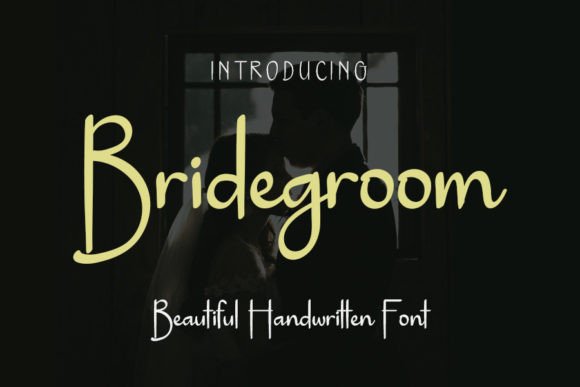
Introducing the Bridegroom Font - the perfect font for adding a touch of elegance and magic to your projects. Designed by shiddiq.art, this script font family is sure to leave a lasting impression on anyone who lays eyes on it.
Bridegroom Font is more than just a font - it's a work of art. With its beautiful and magical handwritten style, it strikes the perfect balance between thin and thick strokes, resulting in a unique and eye-catching look that is sure to captivate your audience.
If you're looking for a font that will elevate your designs and make them stand out from the crowd, look no further than Bridegroom. This Font For Signature is perfect for use in wedding invitations, logos, branding, and any other project where a touch of sophistication is required.
But that's not all - Bridegroom Font is also incredibly versatile, meaning it can be used in a wide range of projects, from print to digital. Whether you're designing a website, creating a social media post, or printing out a poster, this font will ensure your message is conveyed in the most beautiful and elegant way possible.